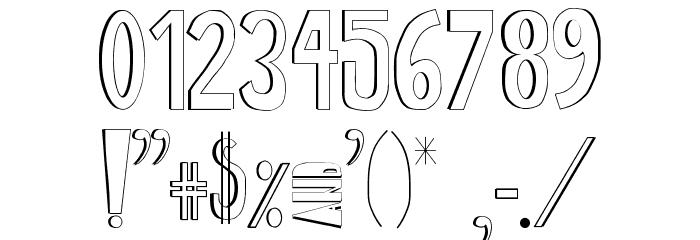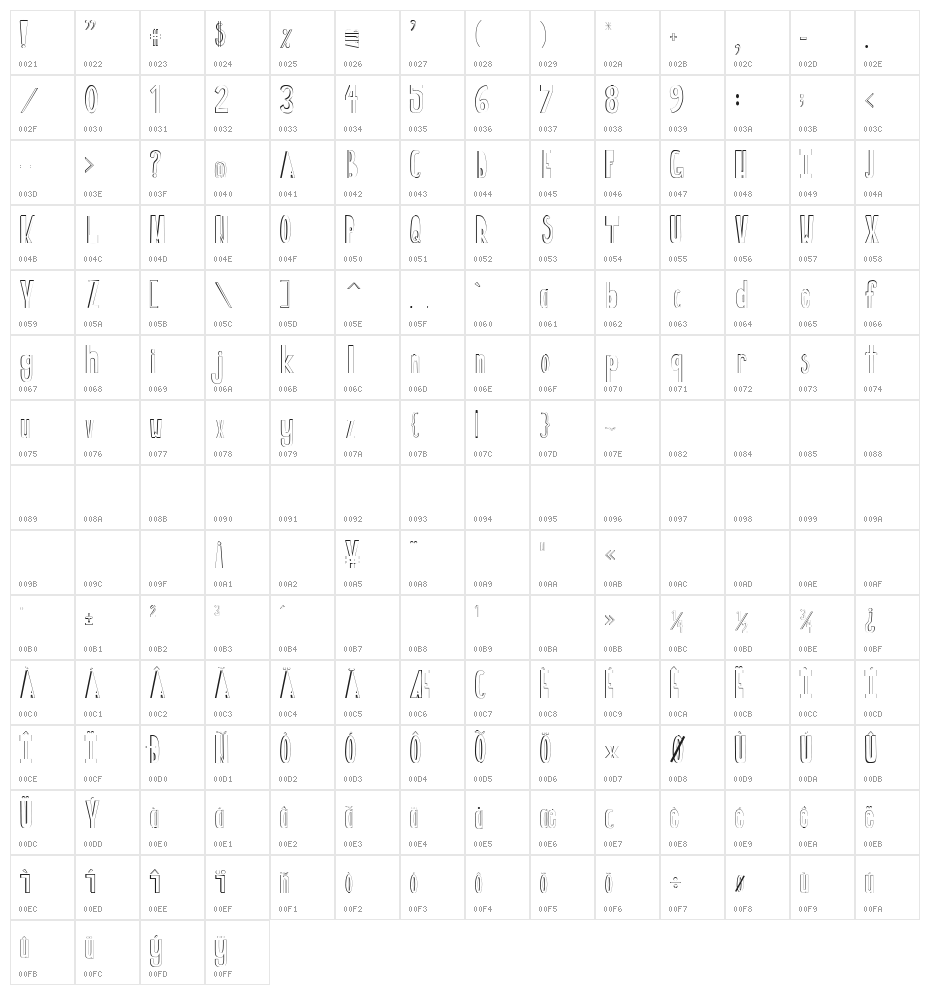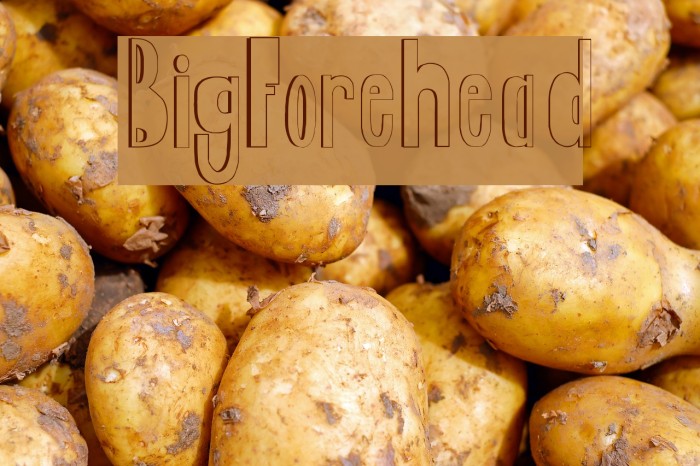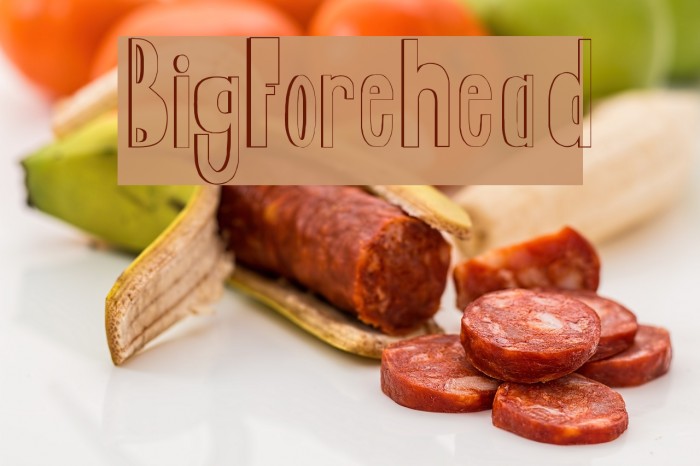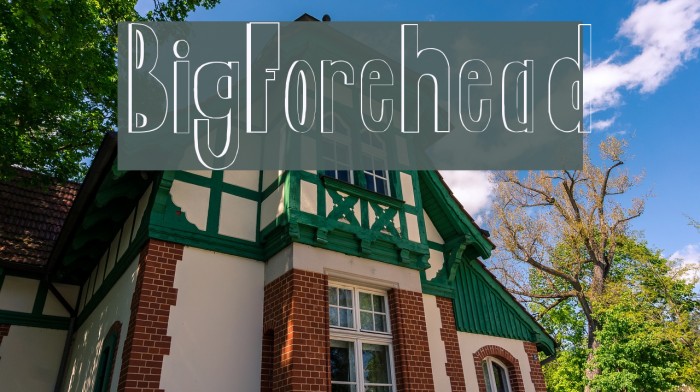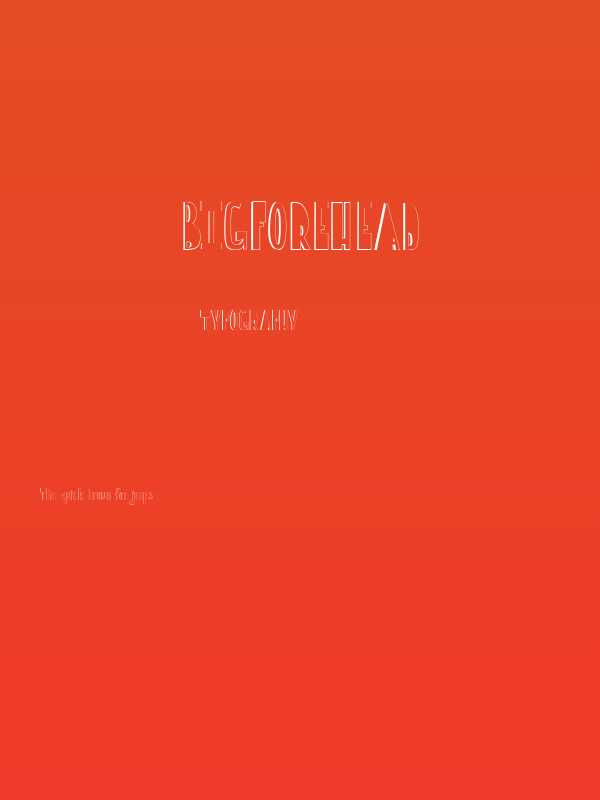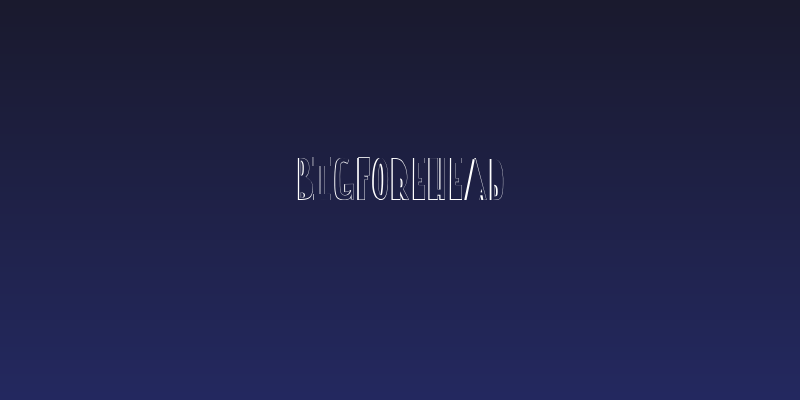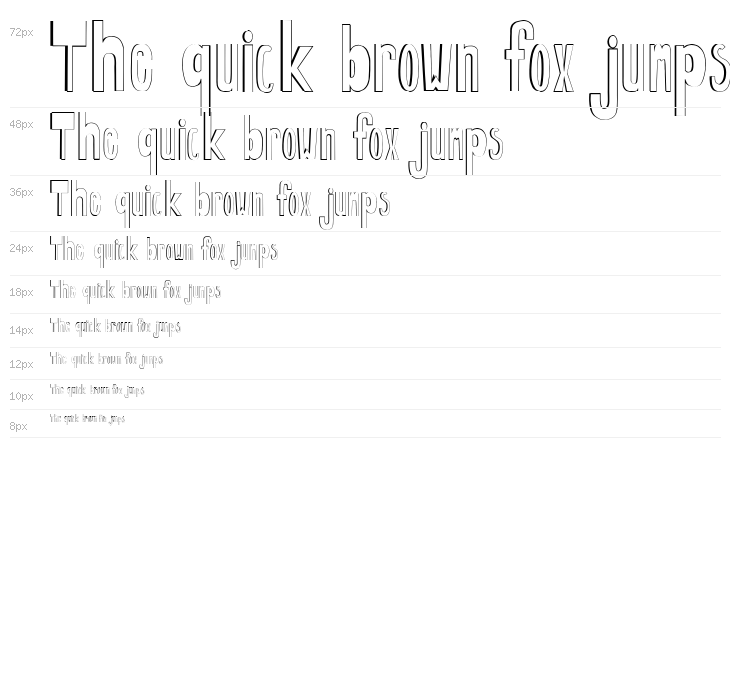
BigForehead Font
BigForehead Description
This font features a bold and playful design with a unique outline style that gives it a three-dimensional appearance. The uppercase letters are tall and narrow, while the lowercase letters maintain a consistent height, creating a harmonious balance. The numbers are equally bold, ensuring visibility and impact. Special characters are creatively designed, adding to the font's overall quirky and fun aesthetic. The font's distinctiveness makes it stand out, making it ideal for eye-catching designs.